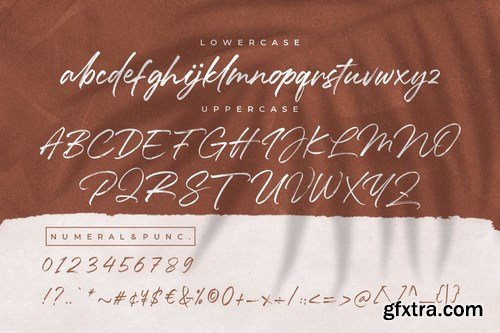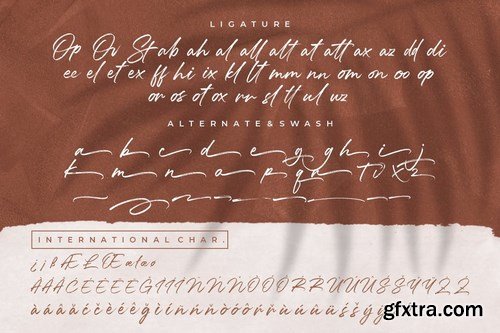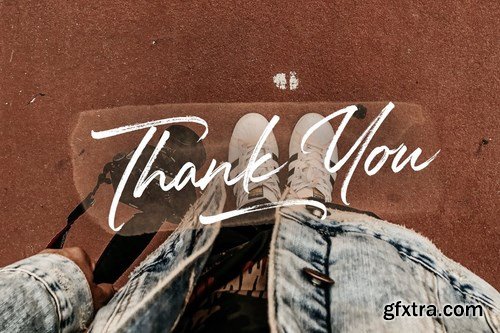
Mallorie a handbrush stylish font with natural movement brush looks elegant and catchy and perfect for your latest project.
Mallorie is perfect for branding projects, logo, wedding designs, social media posts, advertisements, product packaging, product designs, label, photography, watermark, invitation, stationery and any projects that need handwriting taste. What's Included : Mallorie (OTF/TTF/WOFF) Web Fonts Ton of glyphs Ligature, Alternate & Swashes Works on PC & Mac Simple installations Accessible in the Adobe Illustrator, Adobe Photoshop, Adobe InDesign, even work on Microsoft Word. PUA Encoded Characters - Fully accessible without additional design software. Fonts include multilingual support for; Afrikaans, Albanian, Czech, Danish, Dutch, English, Estonian, Finnish, French, German, Hungarian, Italian, Latvian, Lithuanian, Norwegian, Polish, Portugese, Slovak, Slovenian, Spanisch, Swedish.